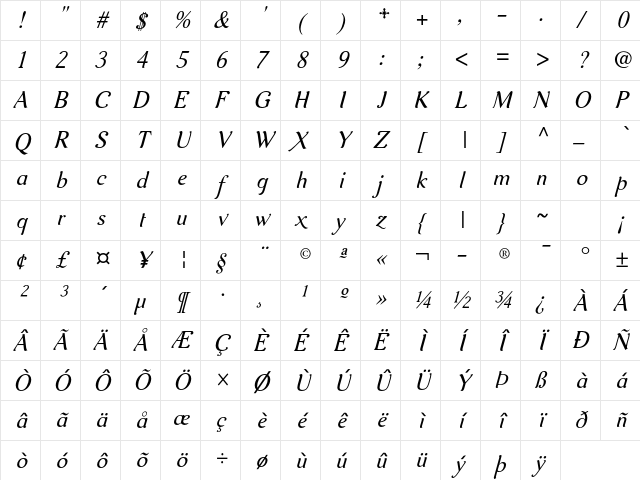
Aurelis ADF No2 Std Italic
Foundry: Arkandis Digital Foundry.
Designer: Hirwen HARENDAL
Design Context for Aurelis ADF No2 Std
Aurelis ADF No2 Std is a composed and adaptable typeface that performs quietly and consistently across a wide range of design contexts. The slanted form adds forward momentum and visual energy.